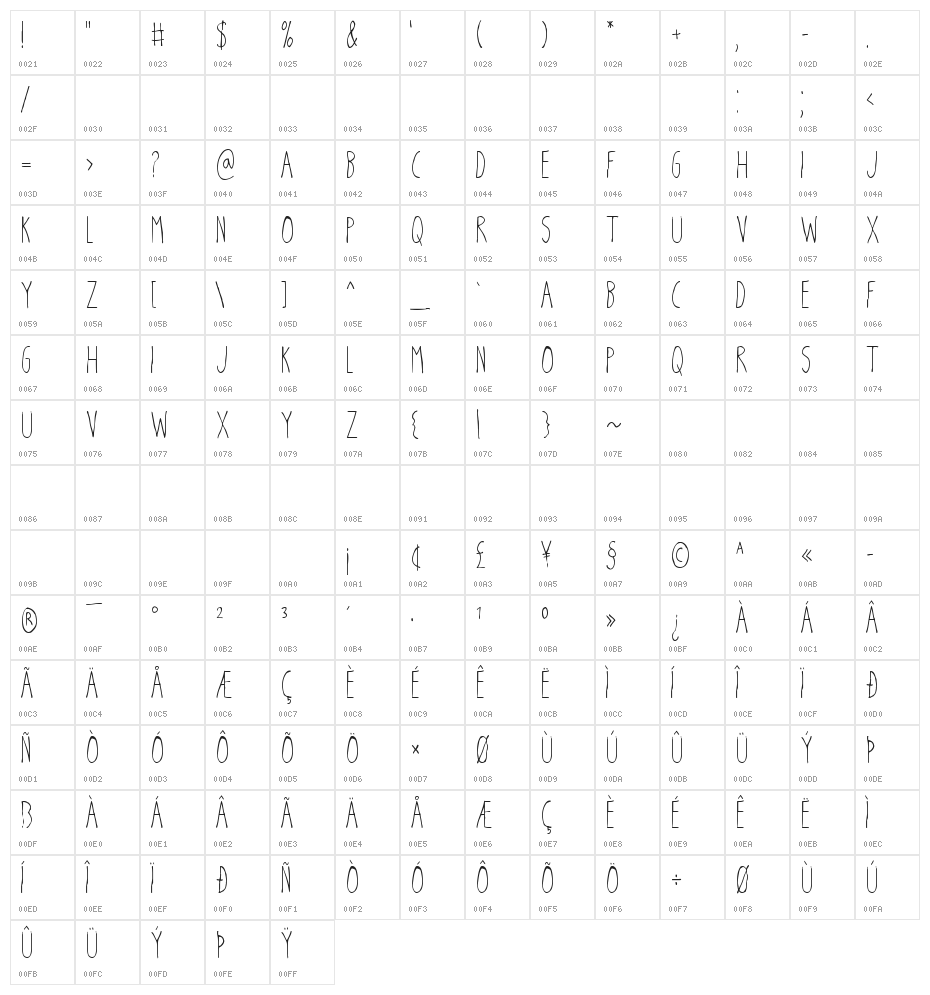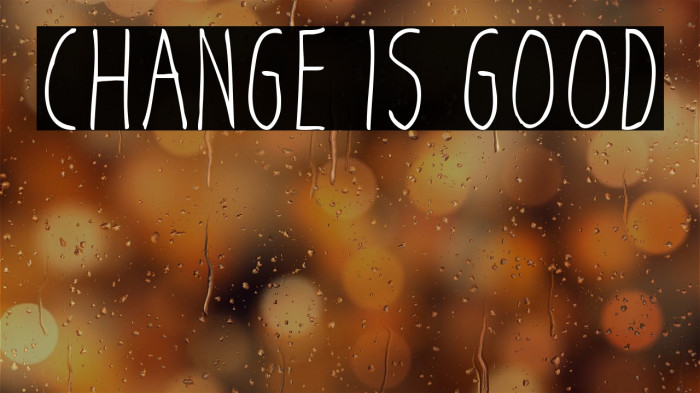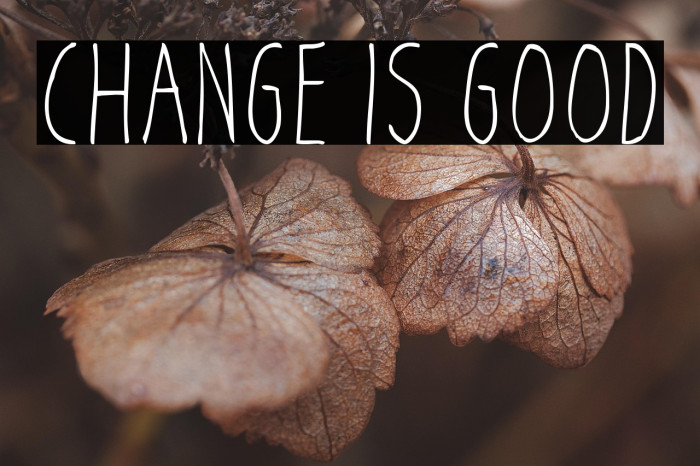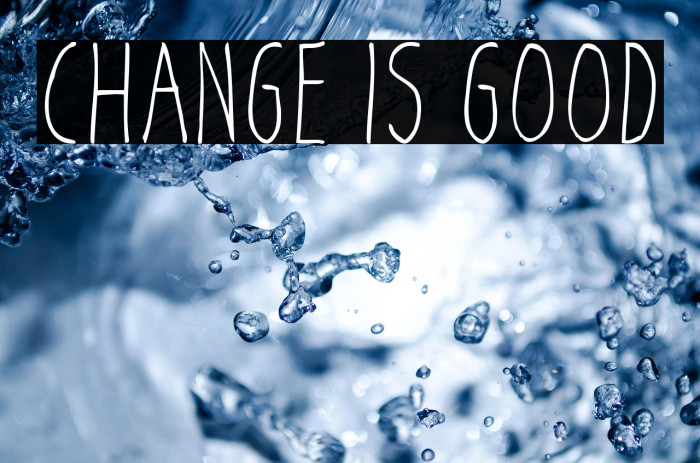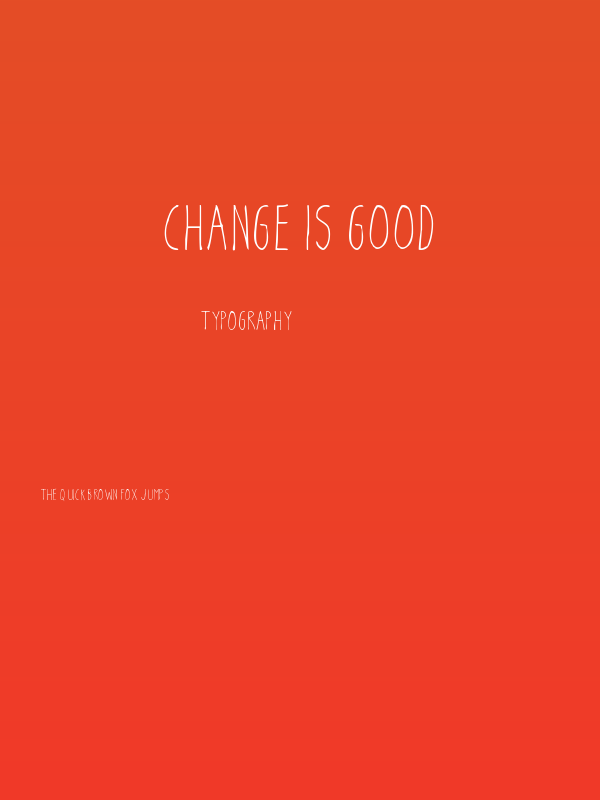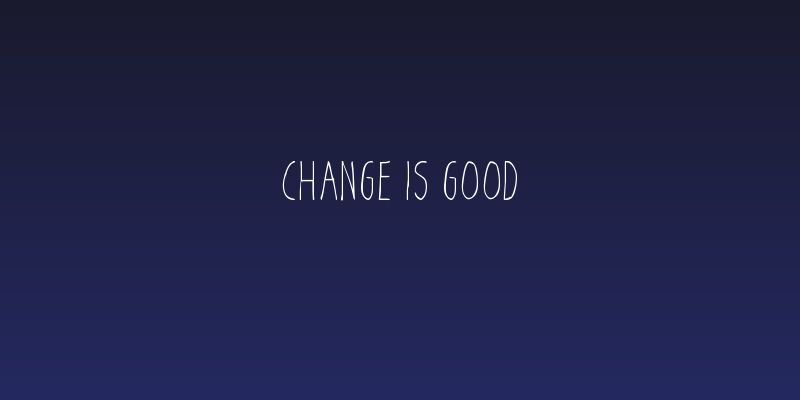
Change Is Good Font
Change Is Good Description
This font features a playful and whimsical handwritten style, characterized by tall, narrow letters with a slight irregularity that adds a personal touch. The strokes are thin and consistent, giving it a light and airy appearance. The uppercase and lowercase letters maintain a uniform height, creating a cohesive look. The font includes a full set of numerals and a variety of special characters, making it versatile for different uses. Its informal and friendly style makes it suitable for creative projects that require a personal or casual feel.
| Width | Condensed |
| Overall Style | Casual |
| Use Case | Headlines, Informal text, Creative projects |
| Proposed Projects | Ideal for greeting cards, invitations, children's books, and personal branding projects. |